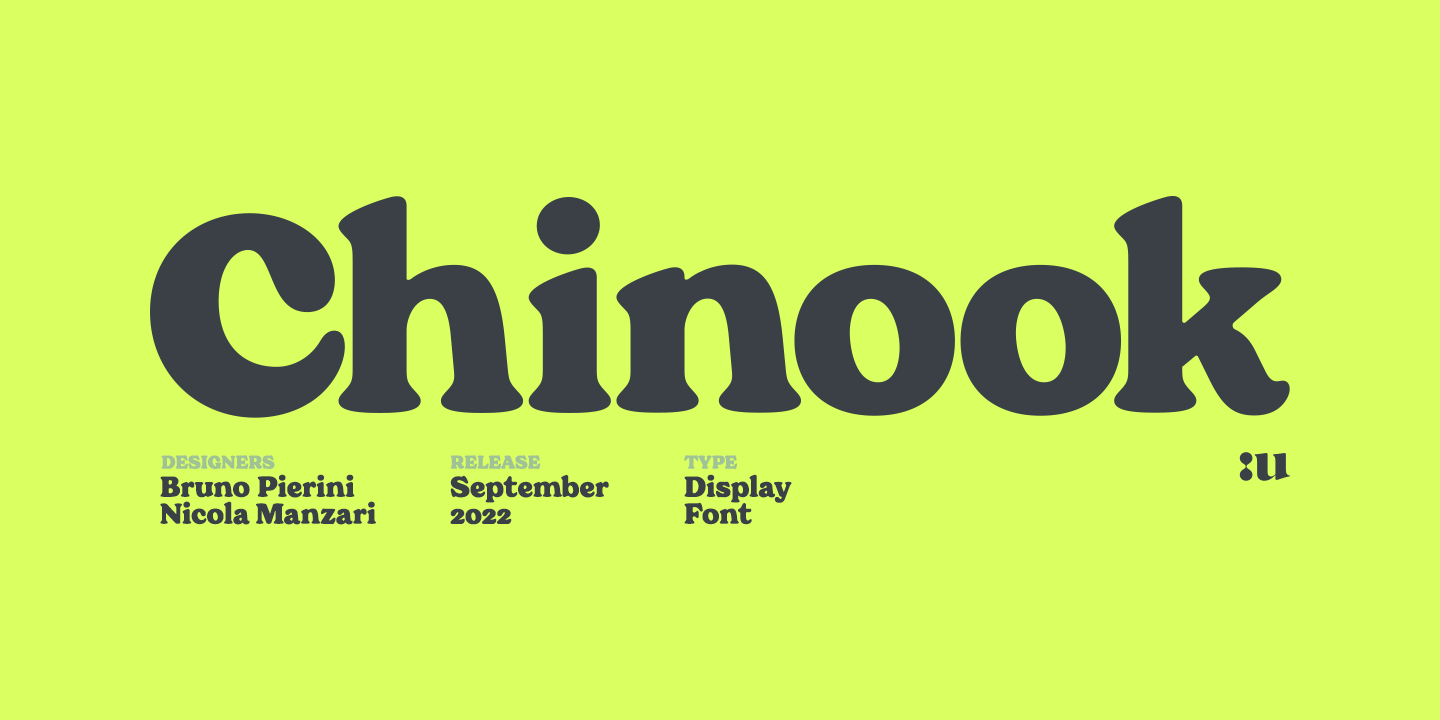
Chinook Font is perfect for outdoor adventure brands, national park signage, wilderness camping gear, hiking equipment catalogs, environmental organizations, nature documentaries, travel magazines, rustic lodges, outdoor festivals, and adventure tourism marketing. This rugged typeface excels in projects that celebrate the great outdoors and natural exploration.
What makes Chinook Font exciting is its authentic representation of wilderness spirit through letterforms inspired by the untamed beauty of the Pacific Northwest. The font captures the essence of mountain winds, forest trails, and expansive landscapes with its sturdy yet organic character design. Its natural flow and weathered strength evoke feelings of adventure, freedom, and connection to nature, making it perfect for brands that want to inspire outdoor exploration and environmental consciousness.
Chinook Font comes in comprehensive font families including Regular, Bold, Light, Italic, Condensed, and Weathered variants. Each family member maintains the distinctive outdoor character while providing different stylistic approaches to accommodate various adventure-themed design needs and wilderness branding requirements.
This premium outdoor typeface represents an excellent choice for designers working with adventure tourism, environmental causes, and outdoor lifestyle brands. Chinook Font Free Download provides outstanding value for outdoor enthusiasts, environmental organizations, and creative agencies specializing in nature-focused marketing. The font's authentic wilderness appeal makes it particularly suitable for trail maps, camping guides, eco-friendly packaging, and adventure travel content.
Whether you're developing brand identity for outdoor gear companies, creating marketing materials for national parks, or designing promotional content for wilderness adventures, Chinook Font brings the authentic spirit of the outdoors to every project with its natural strength and adventurous character.